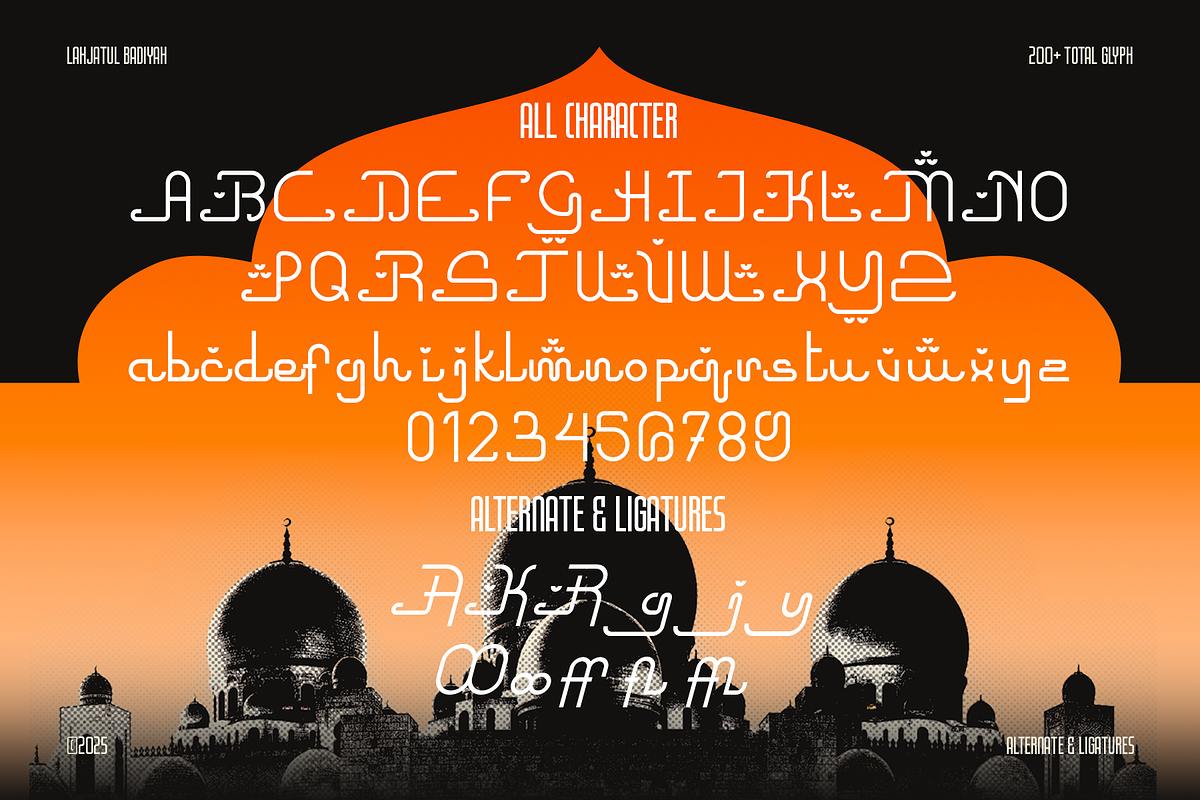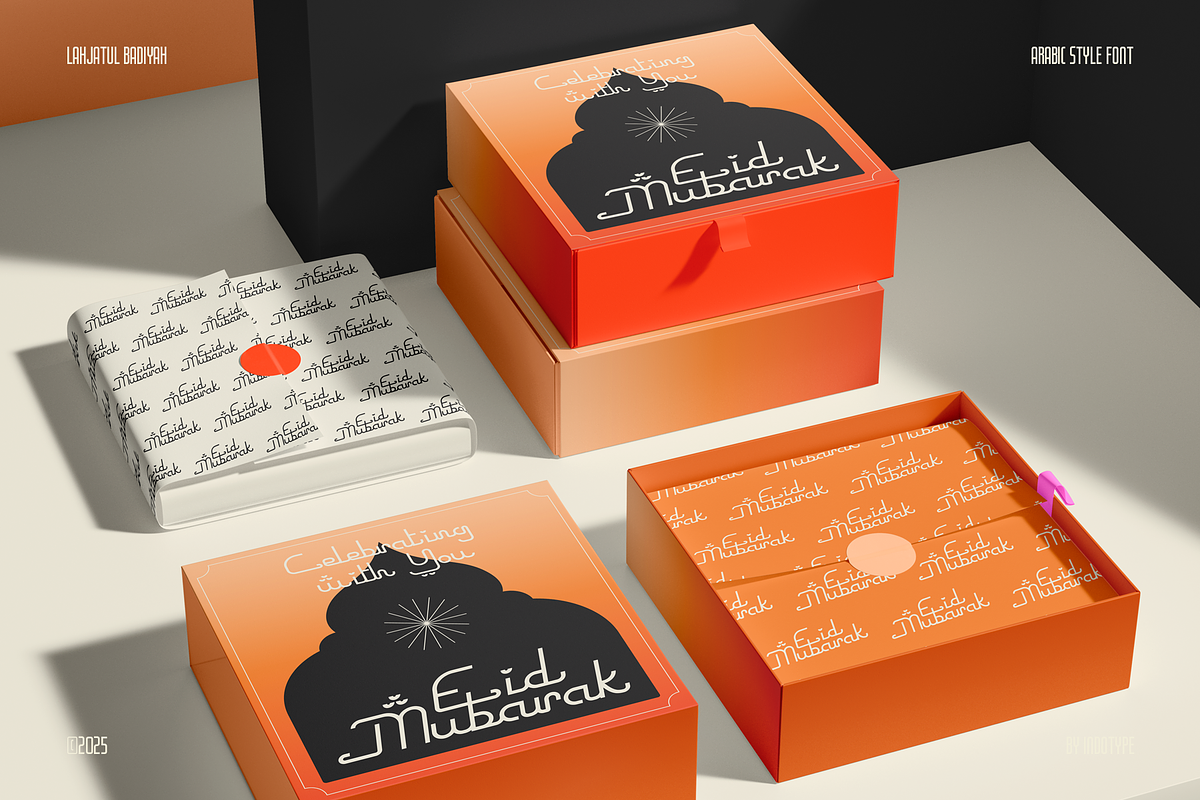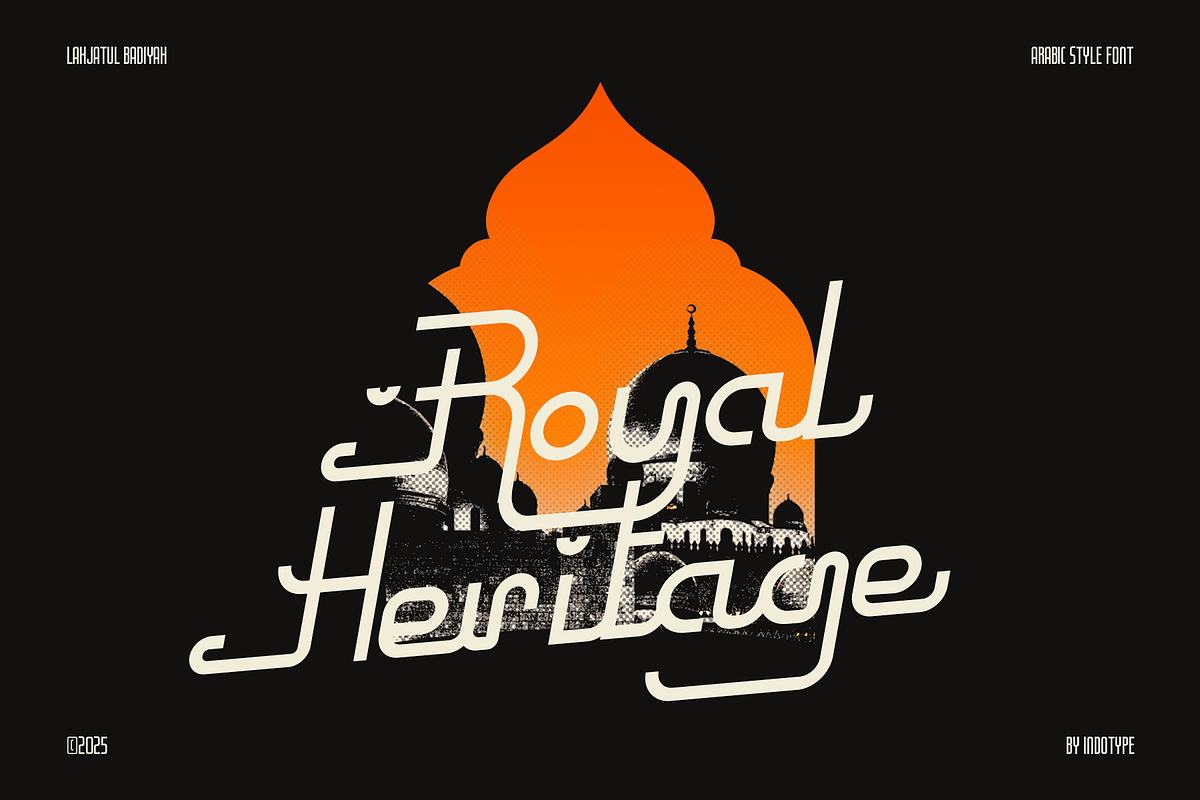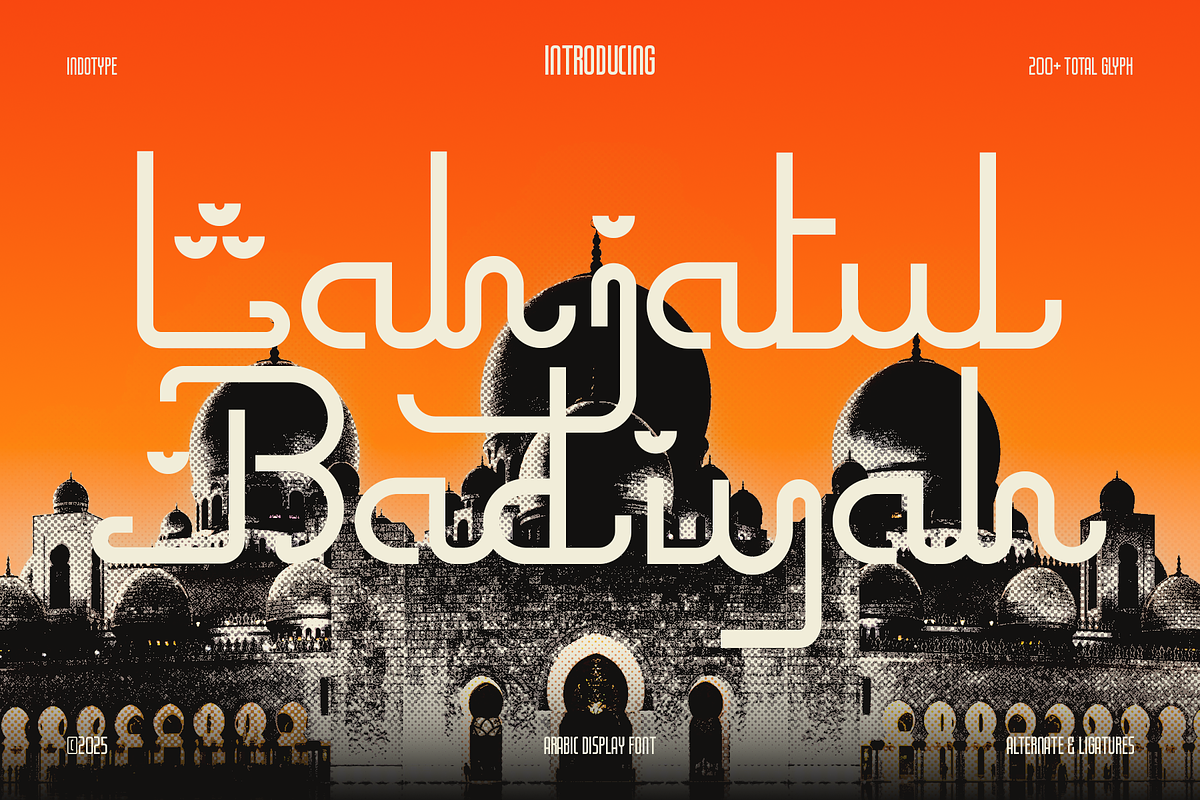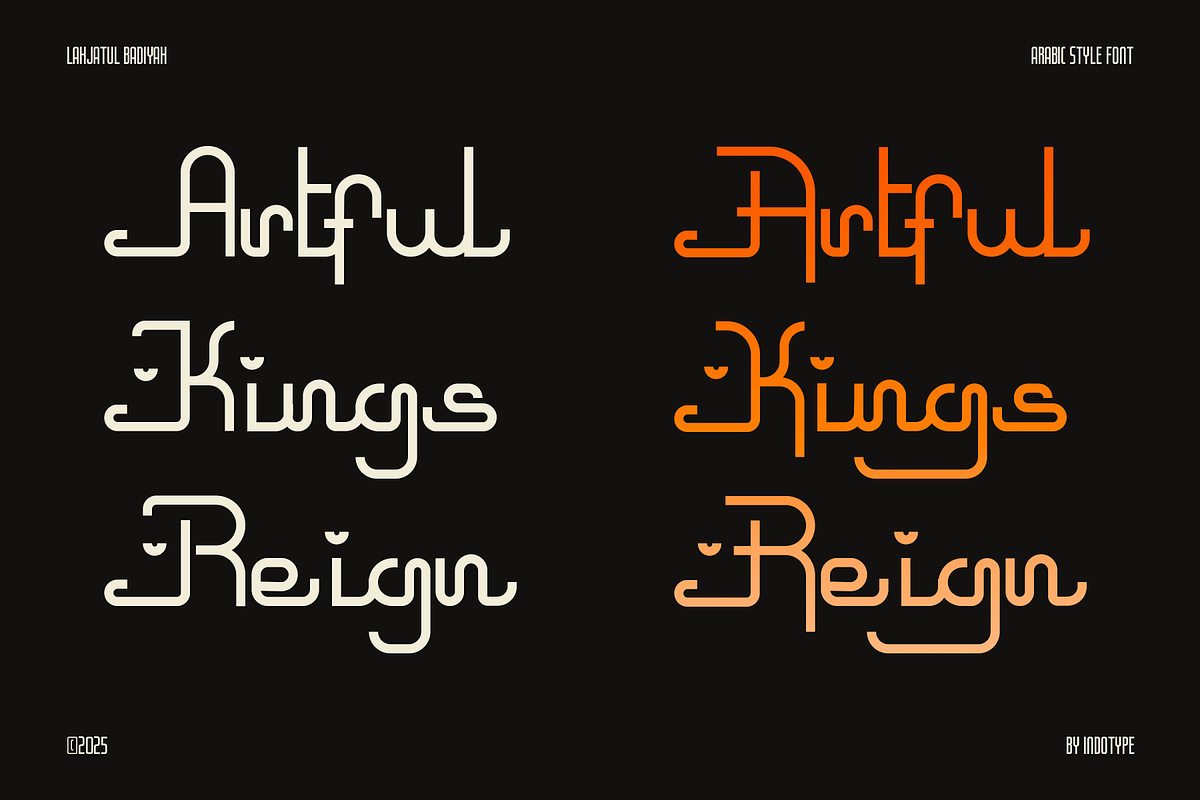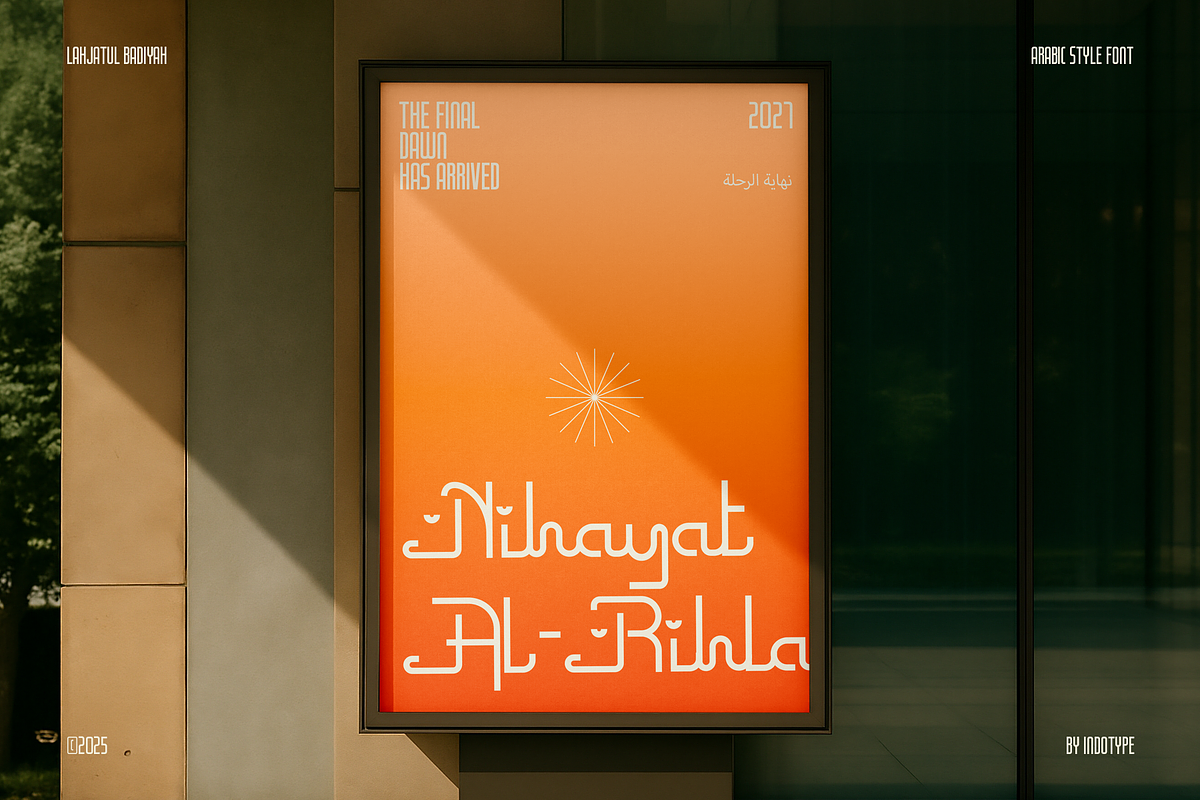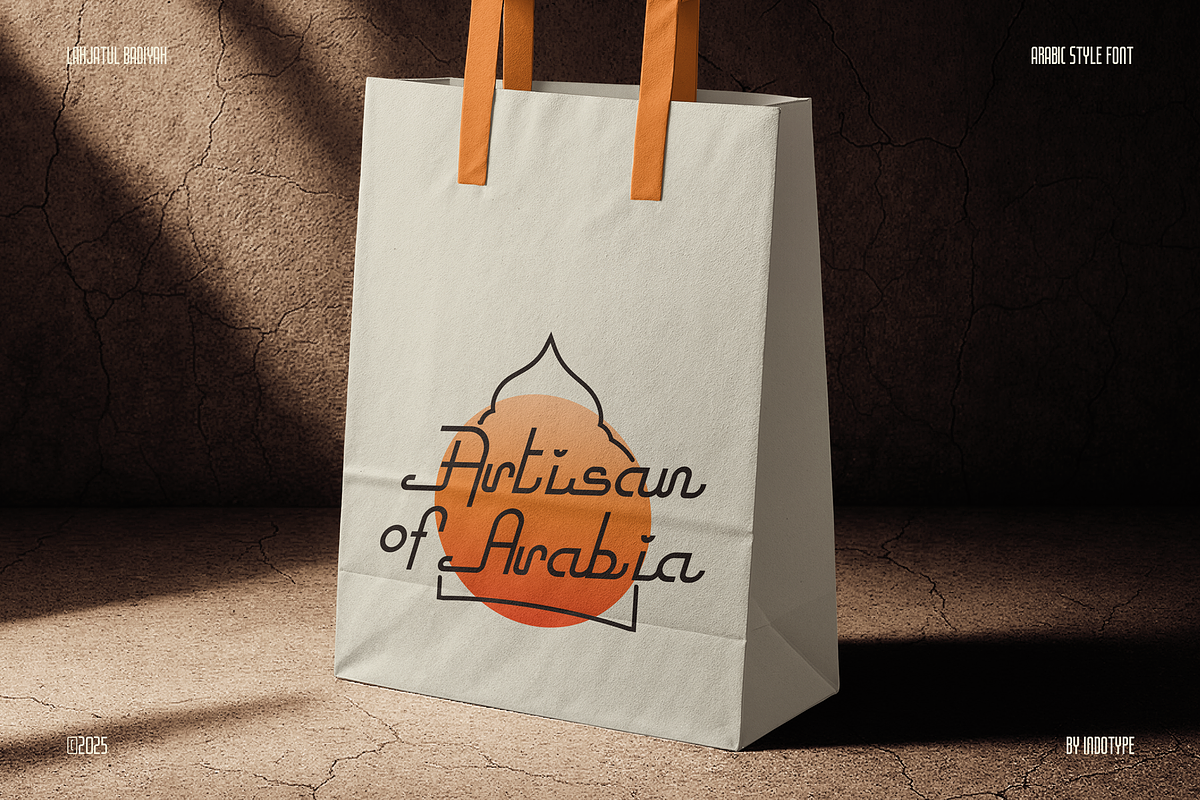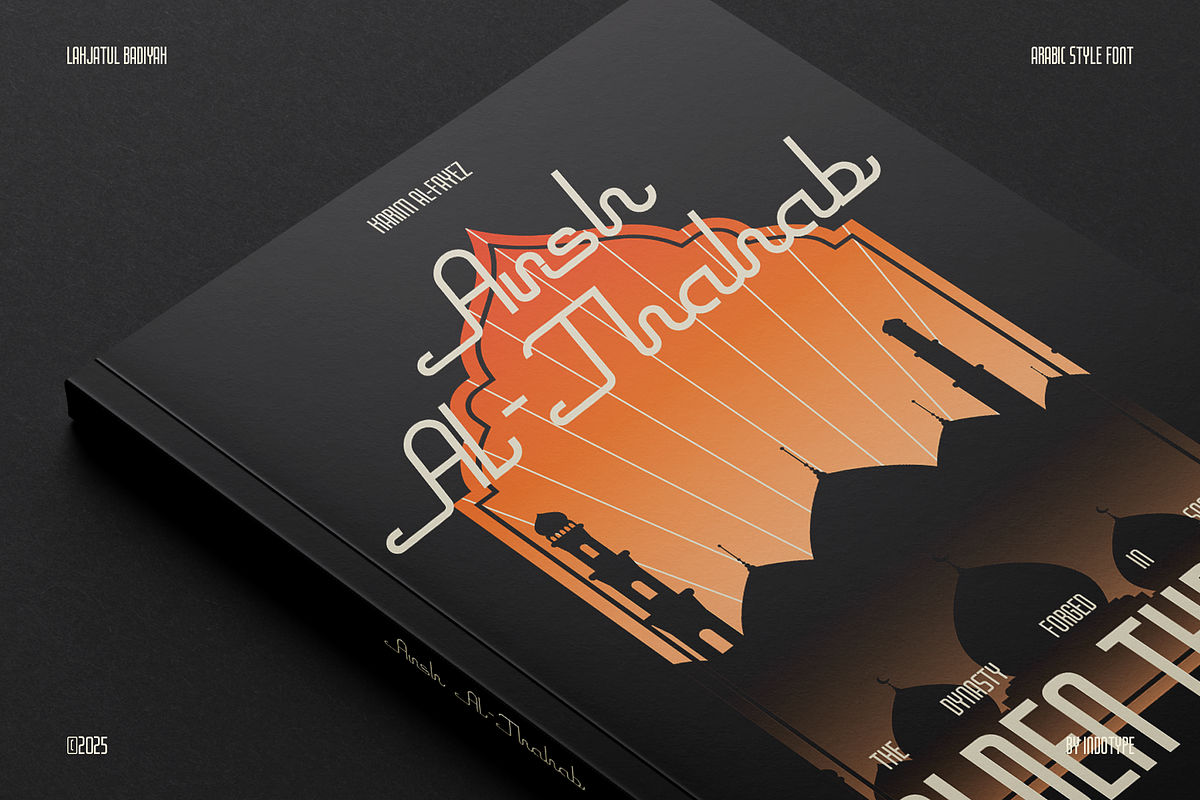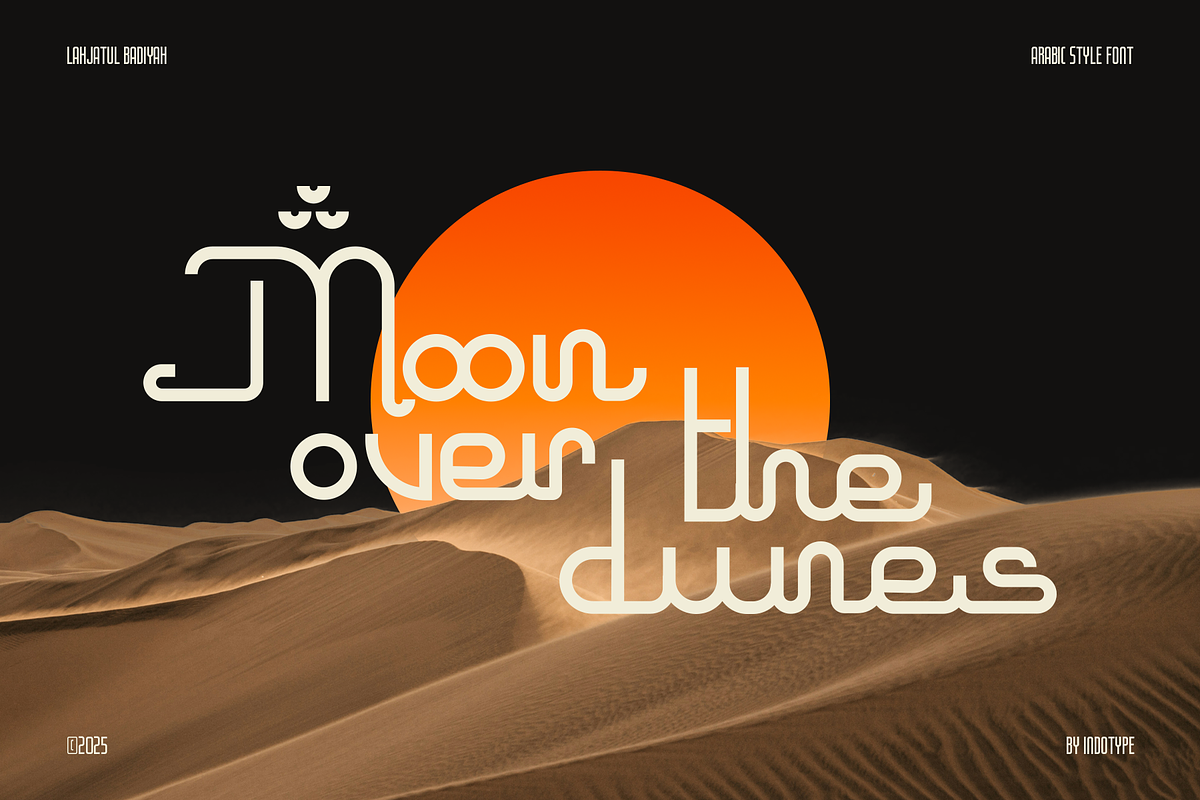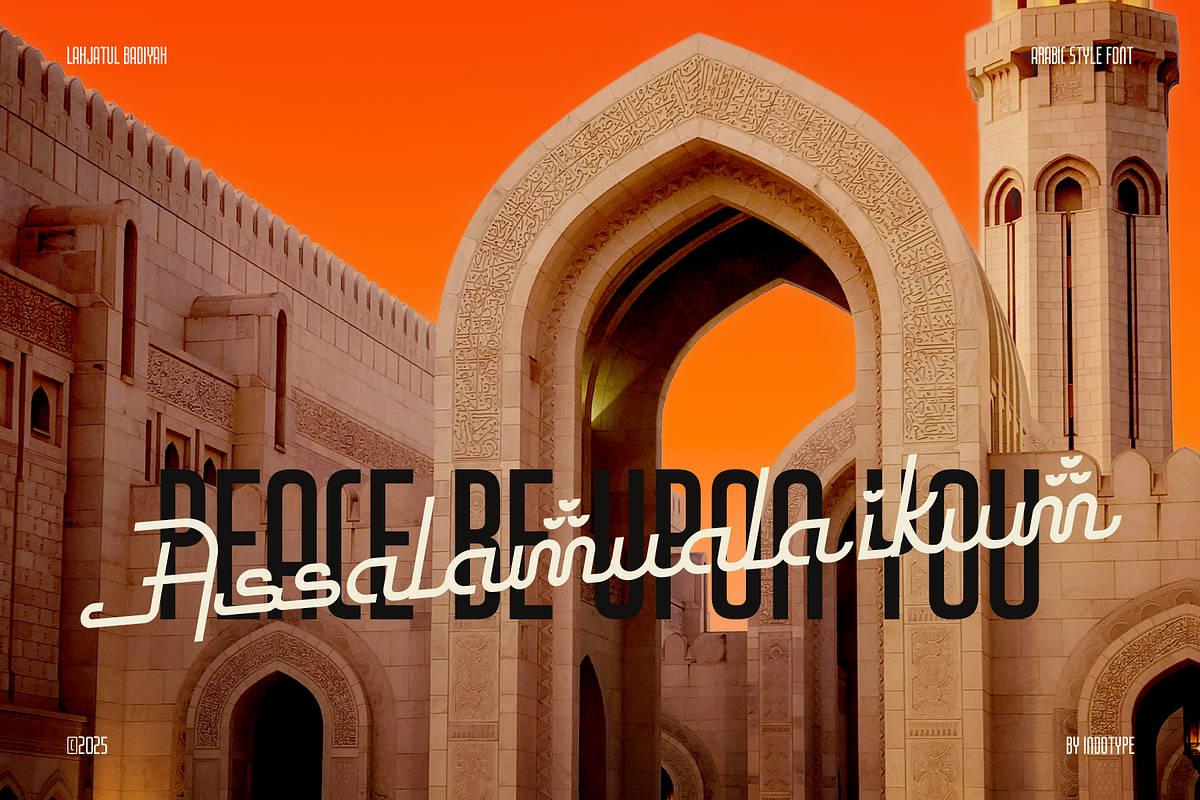
Lahjatul Badiyah - Arabic Display
Lahjatul Badiyah is a modern Arabic-inspired display typeface that blends geometric structure with calligraphic flow. Its smooth curves and distinctive terminals echo traditional Arabic forms while maintaining the clarity and balance of a contemporary Latin design.
This typeface includes carefully designed alternate characters and ligatures, allowing flexible combinations for creating expressive visual compositions. The overall design gives a sense of rhythm and harmony, making it suitable for both cultural and modern design projects.
Lahjatul Badiyah is ideal for headlines, posters, branding, editorial layouts, or any visual work that requires an elegant connection between Arabic aesthetics and modern display typography.